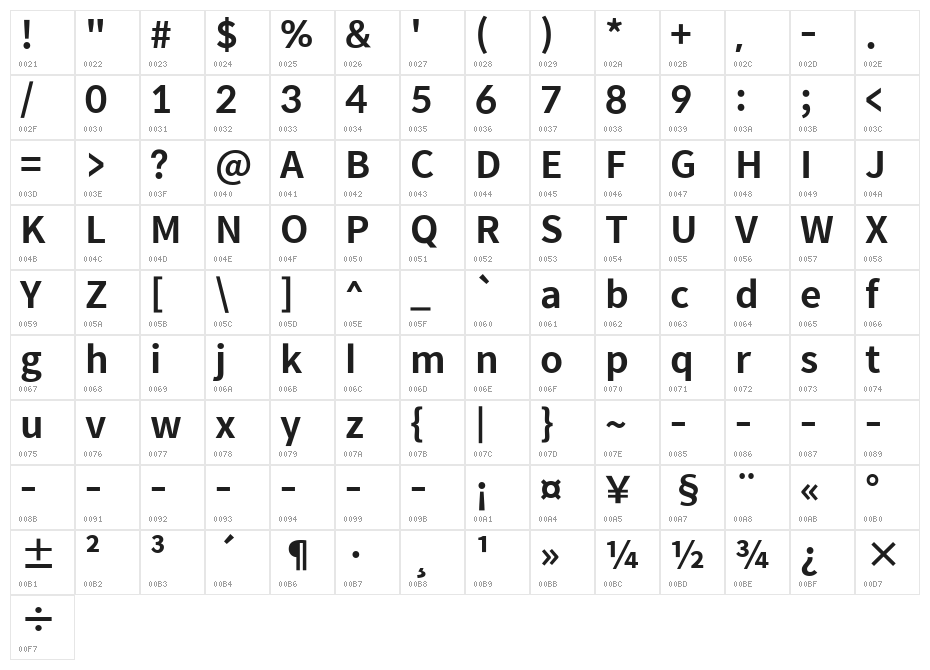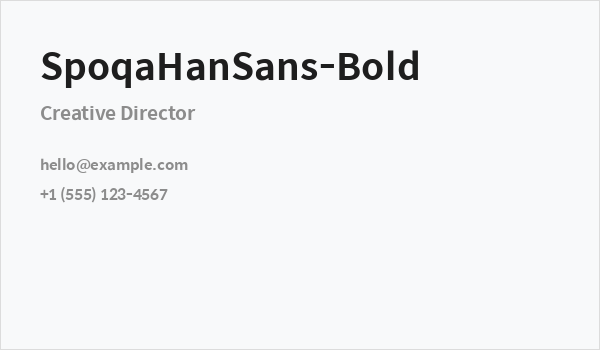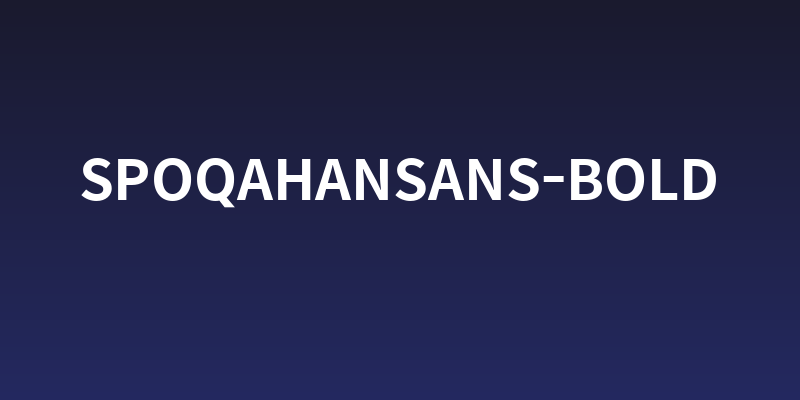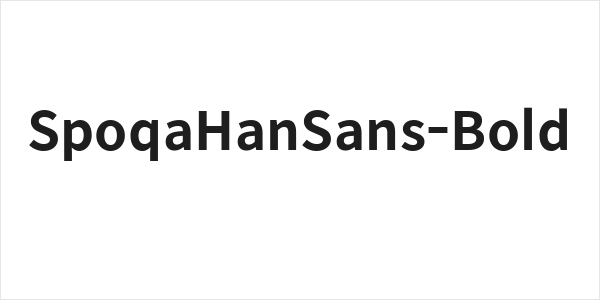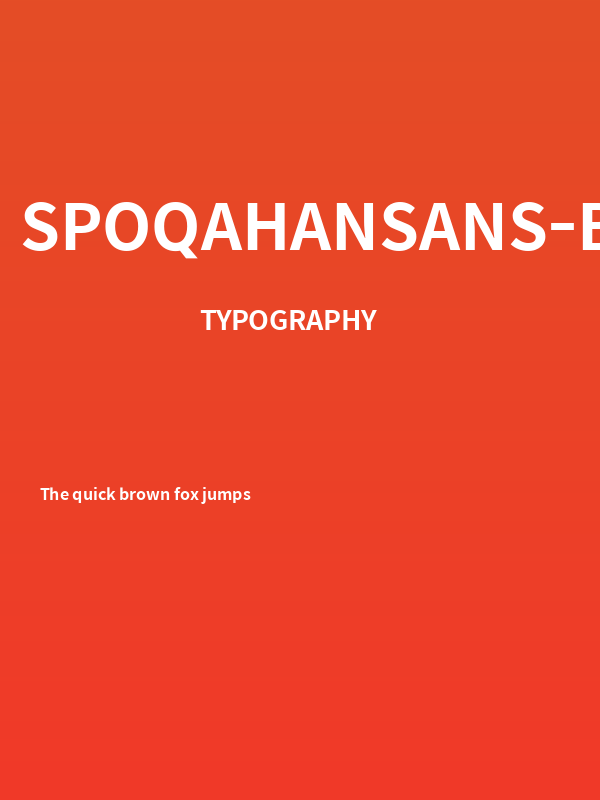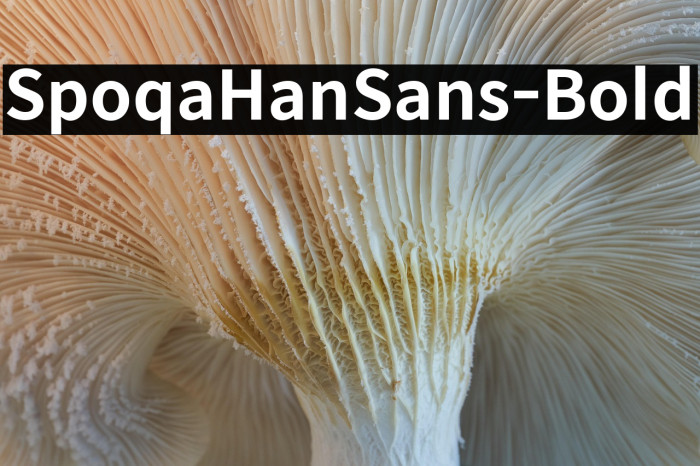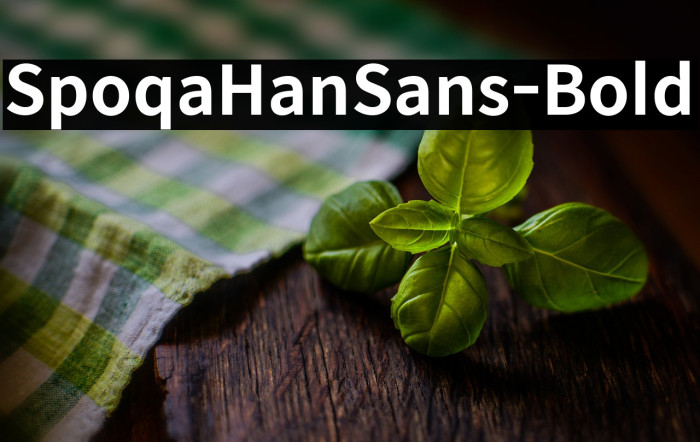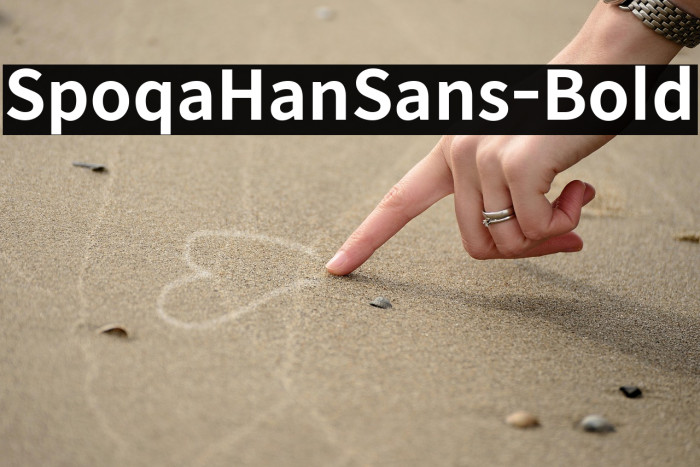
SpoqaHanSans-Bold Font
SpoqaHanSans-Bold Description
This font presents a clean and modern sans-serif style with bold weight, offering excellent readability and a contemporary aesthetic. The characters are evenly spaced, contributing to a balanced and harmonious appearance. The uniform stroke width and lack of serifs give it a sleek and professional look, making it suitable for a variety of digital and print applications. The font's simplicity and clarity make it versatile for both headlines and body text, while its boldness ensures it stands out in any design.
| Proposed Projects | Ideal for digital interfaces, branding, advertising, and editorial design where clarity and impact are essential. |